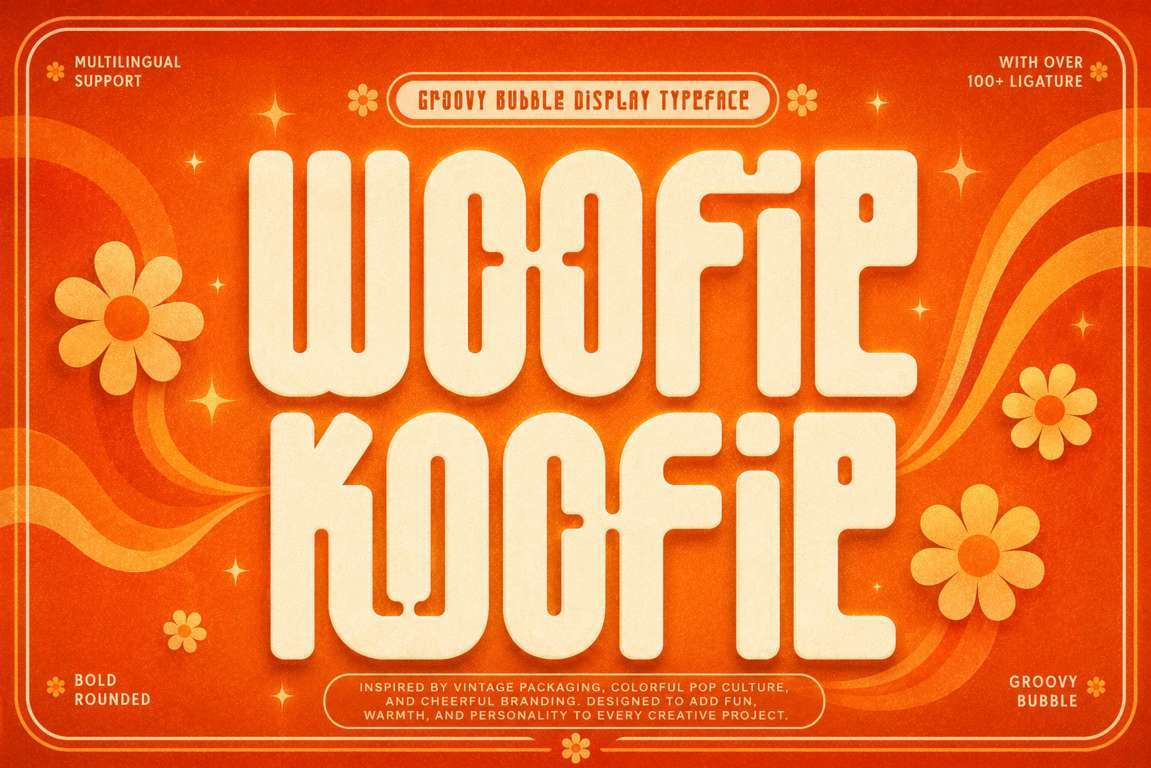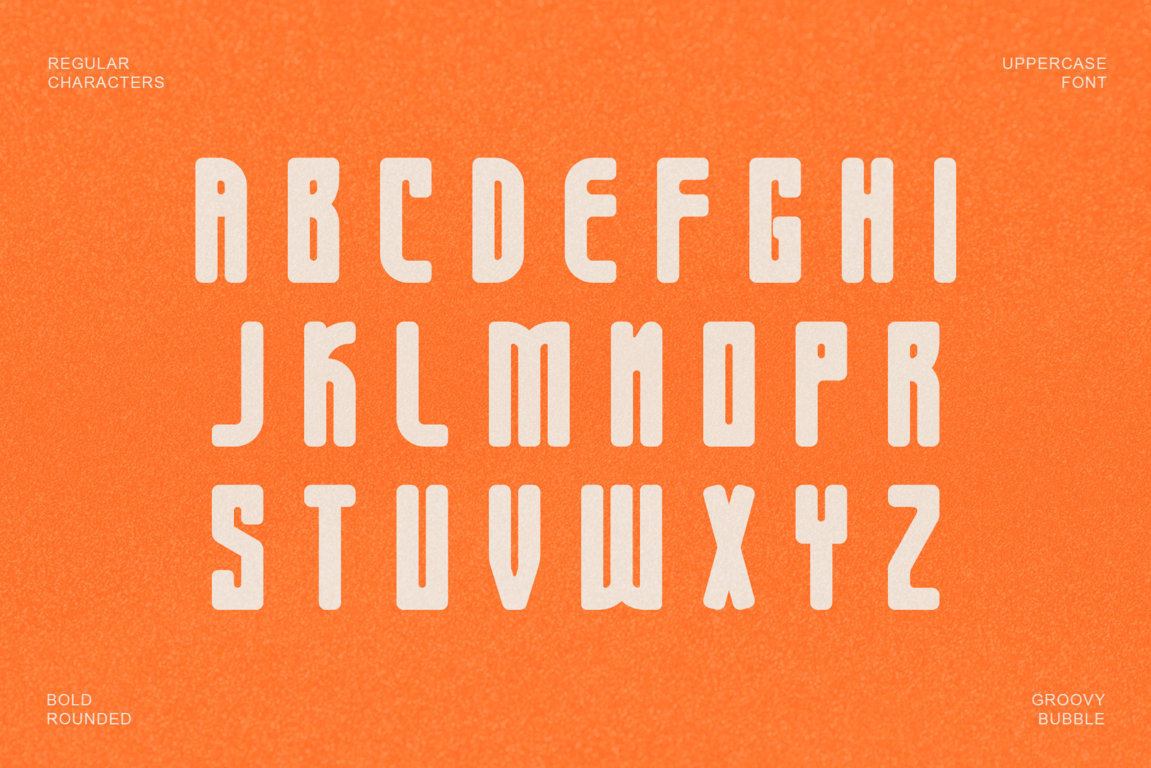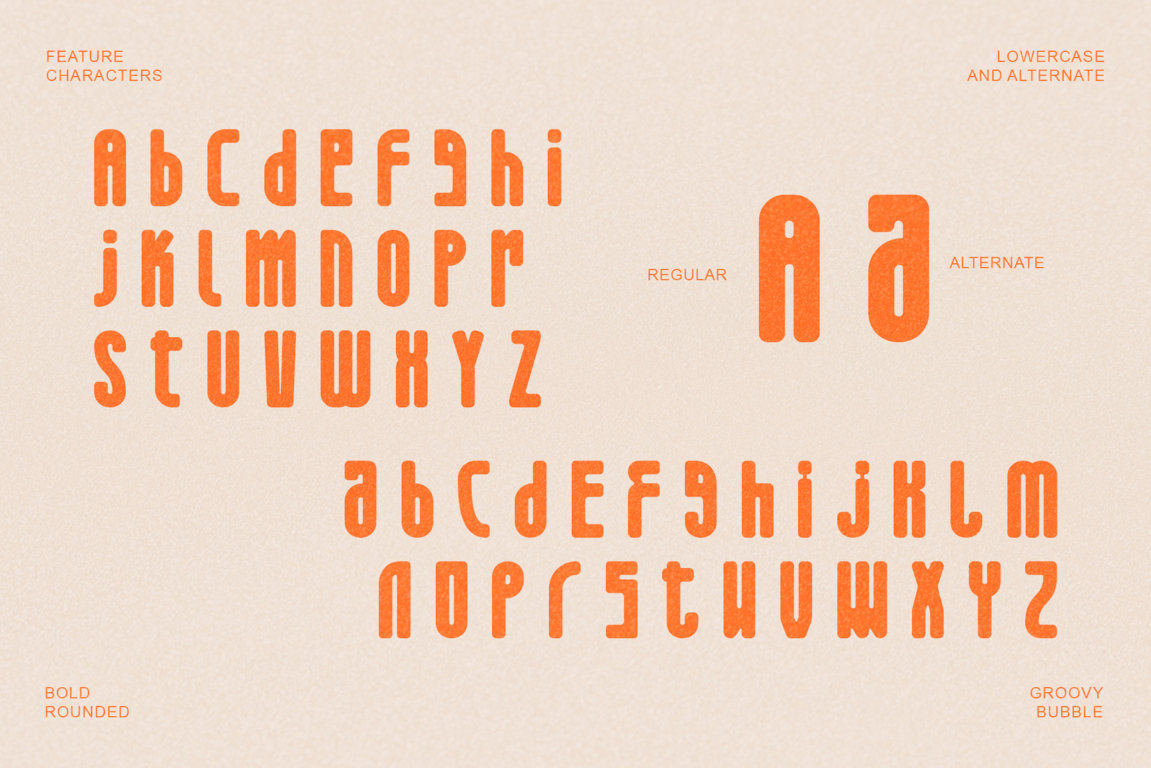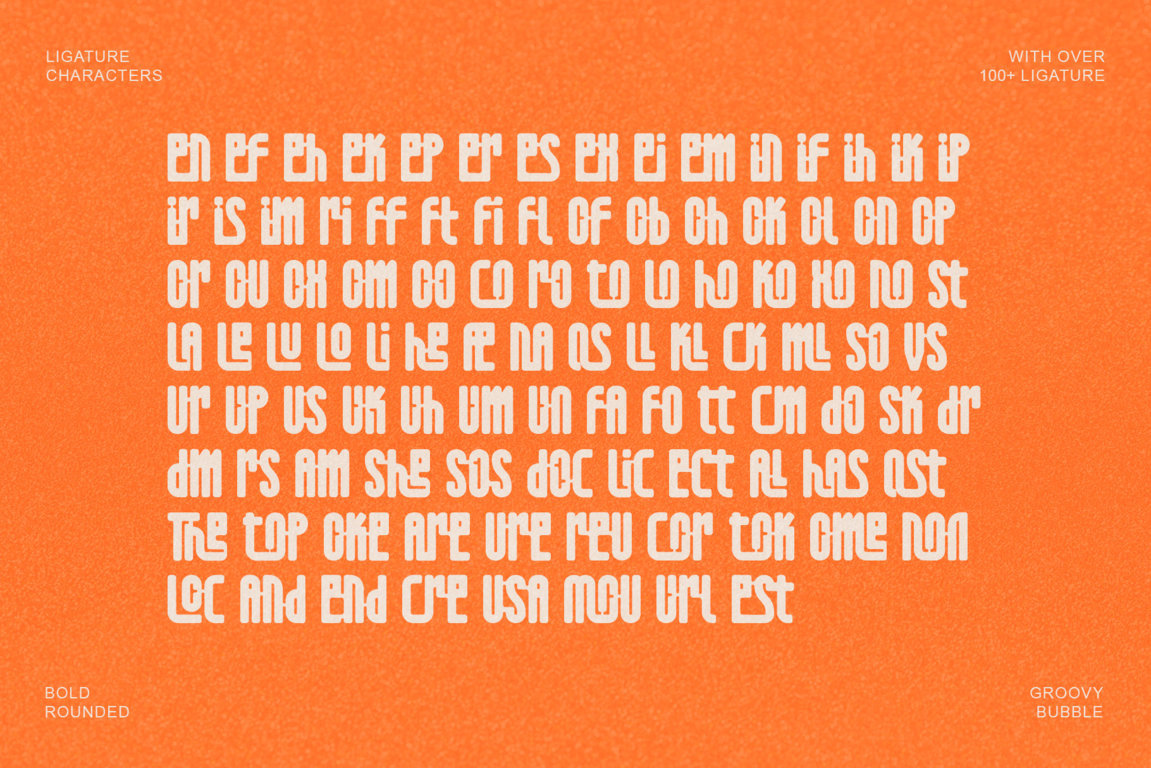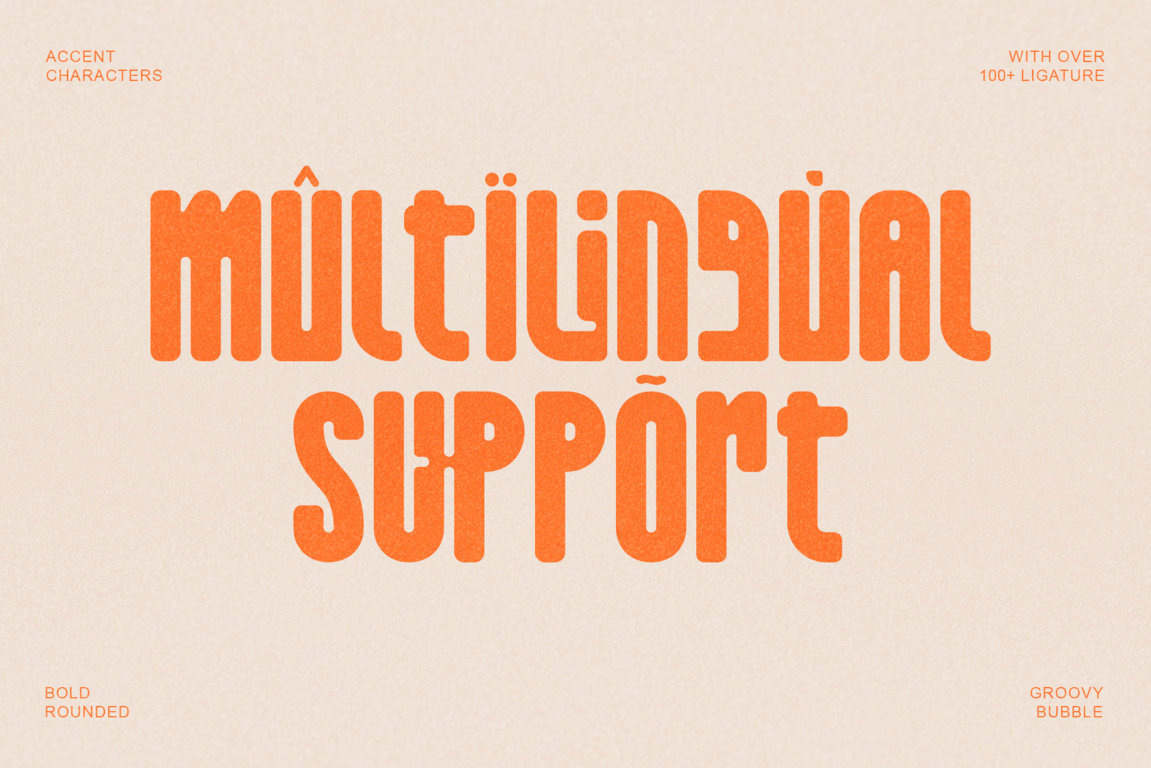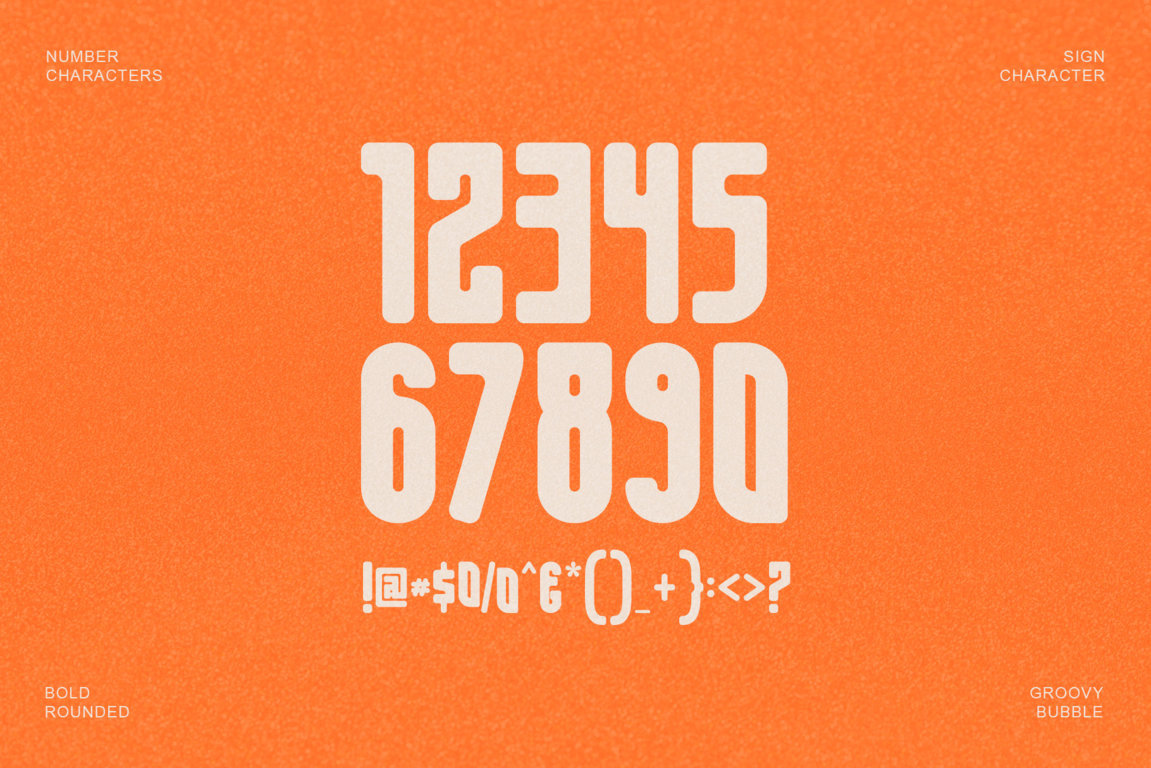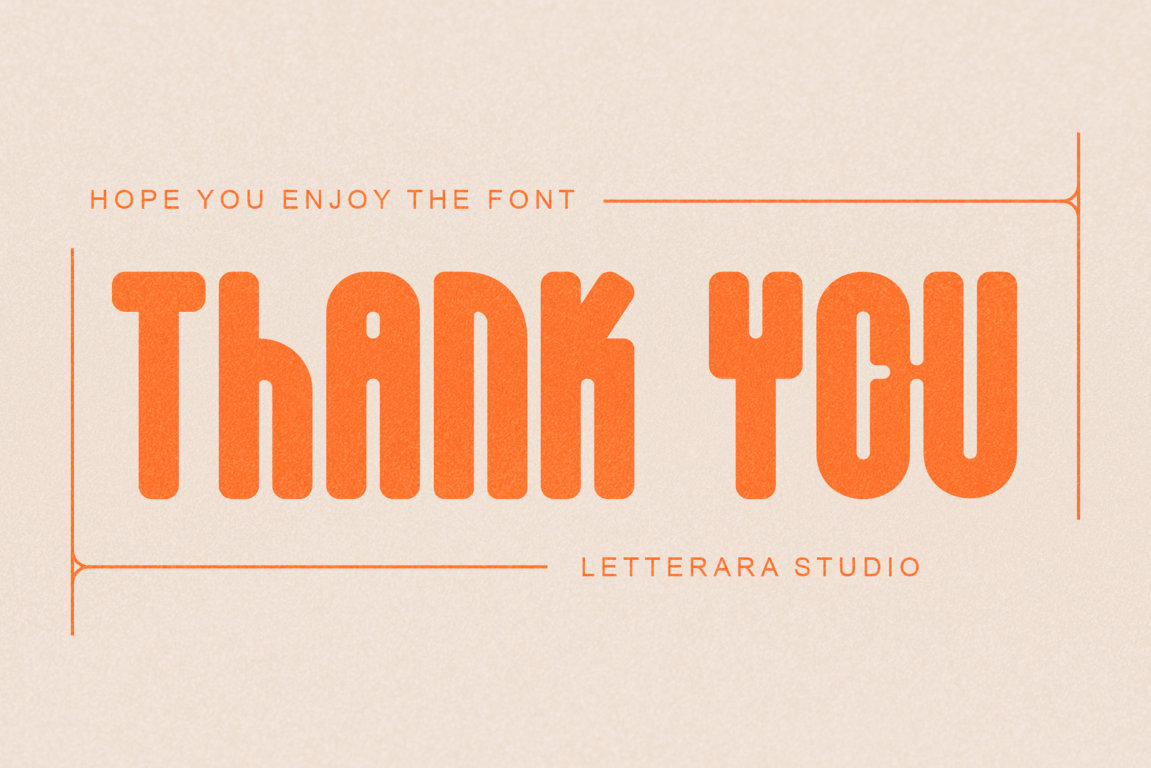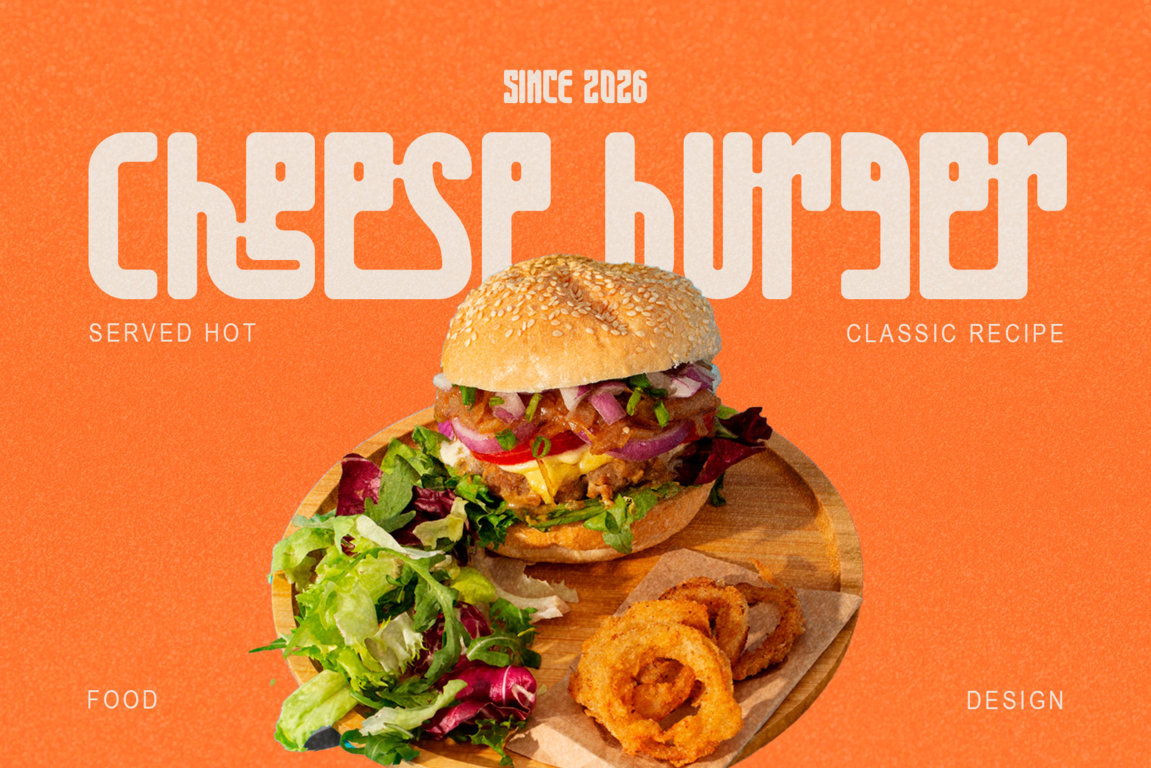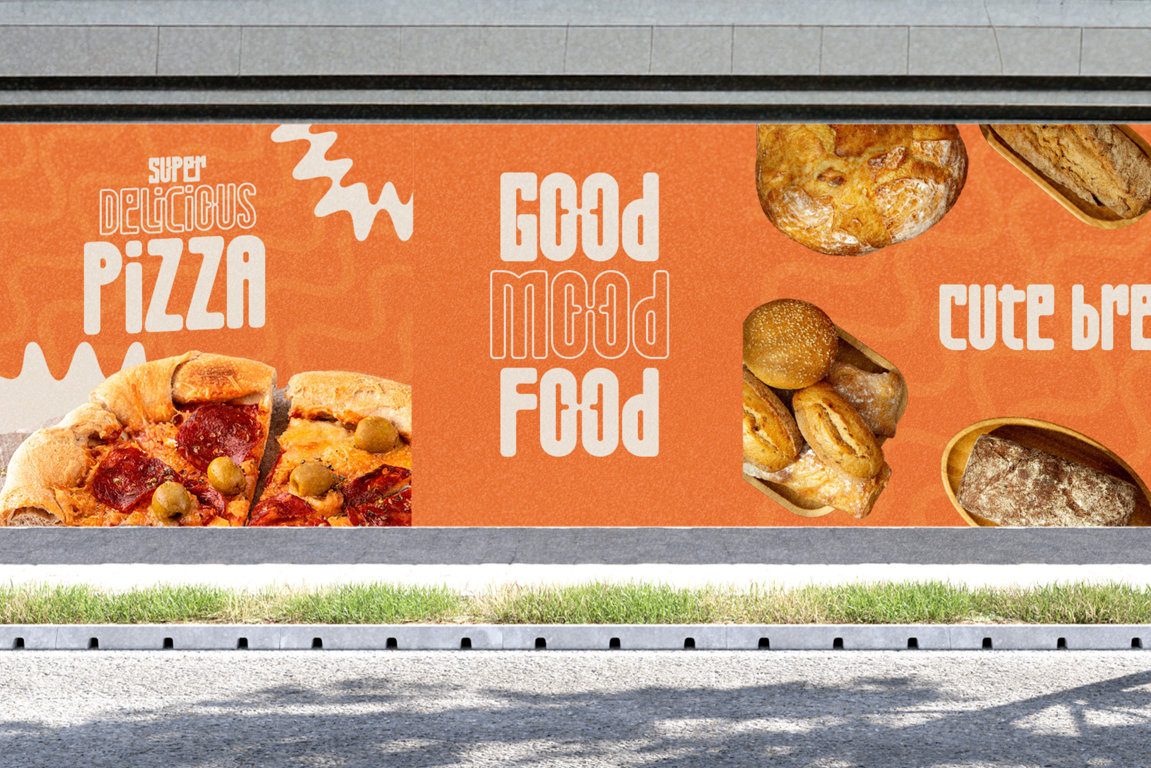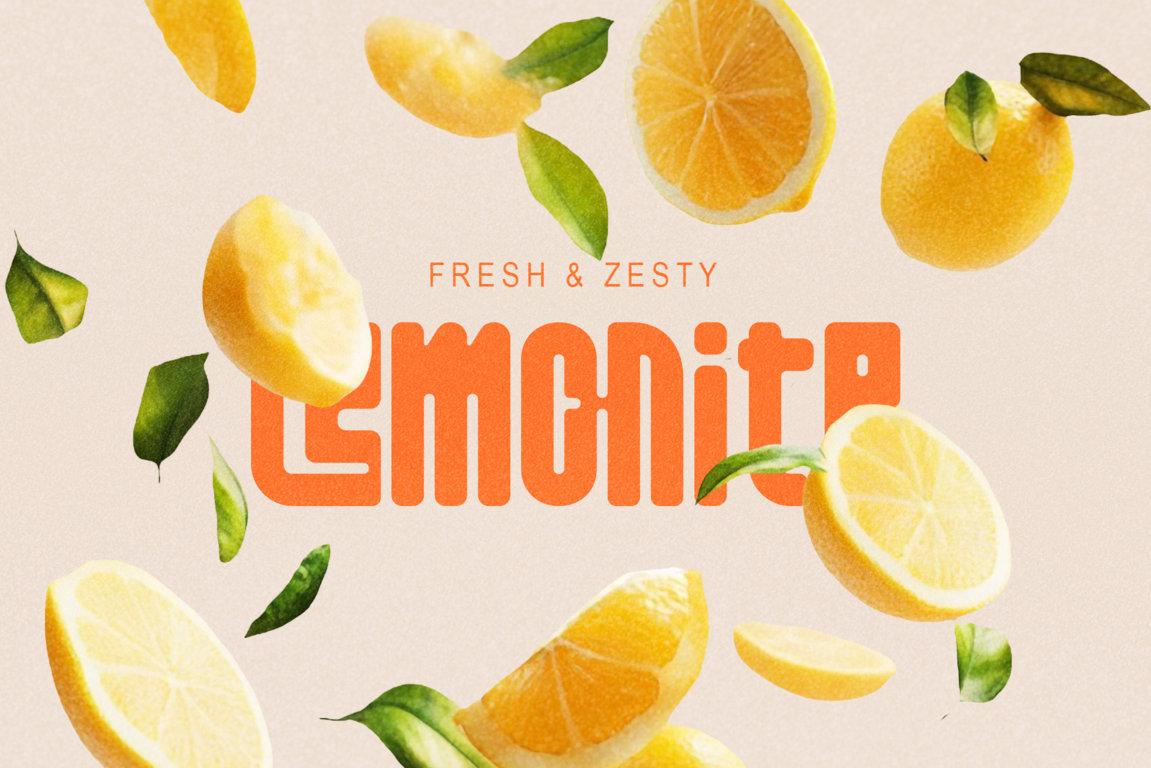
Woofie Koofie Groovy Font – Retro Bubble Display Typeface
Woofie Koofie is a bold groovy bubble display font inspired by 1970s typography, vintage packaging, and colorful pop culture. Featuring uppercase and lowercase letters, alternates, multilingual characters, numerals, punctuation, and more than 100 creative ligatures, it is perfect for retro logos, posters, packaging, apparel, food branding, children’s products, and playful advertising.
Woofie Koofie is a bold and playful groovy bubble display font inspired by 1970s typography, vintage packaging, colorful pop culture, and cheerful retro branding. Its rounded letterforms, tall proportions, and distinctive curves bring warmth, personality, and instant visual impact to every creative project.
Designed for attention-grabbing headlines and memorable brand identities, Woofie Koofie combines nostalgic retro character with a clean and modern finish. The font works beautifully across logos, posters, packaging, apparel, social media graphics, children’s products, food and beverage branding, music artwork, and other designs that need a fun, friendly, and energetic appearance.
Woofie Koofie includes uppercase and lowercase letters, alternate characters, numerals, punctuation, symbols, multilingual characters, and more than 100 creative ligatures. The extensive ligature collection allows selected letter combinations to connect in unique ways, helping you create custom-looking titles, playful wordmarks, and expressive typography without drawing every element manually.
Its bold construction remains clear and recognizable at large sizes, while the rounded details make the font feel approachable, cheerful, and full of personality. Whether you are creating a nostalgic product label, a colorful event poster, a playful logo, or a retro-inspired social media campaign, Woofie Koofie gives your design a distinctive look that is difficult to ignore.
Perfect for:
• Retro and vintage logo design
• Groovy posters and event graphics
• Food and beverage packaging
• Candy, bakery, and snack branding
• Children’s products and educational designs
• Fashion, apparel, and merchandise
• Album covers and music promotions
• Social media posts and advertisements
• YouTube thumbnails and channel branding
• Restaurant and café identities
• Product labels and promotional displays
• Creative headlines and editorial titles
• Stickers, invitations, and greeting cards
• Playful websites and digital campaigns
Features:
• Support multilingual; ä ö ü Ä Ö Ü ß ¿ ¡
• Numerals & Punctuation
• uppercase letters
• Alternate & Ligature
Woofie Koofie is made for designers who want to create joyful, nostalgic, and highly memorable visual identities.
Woofie Koofie — bold, bubbly, groovy, and made to bring fun to every design.
Woofie Koofie is a playful retro bubble font with bold rounded forms, alternate characters, multilingual support, and more than 100 creative ligatures. Ideal for groovy logos, vintage packaging, posters, apparel, food branding, children’s products, and colorful promotional designs.